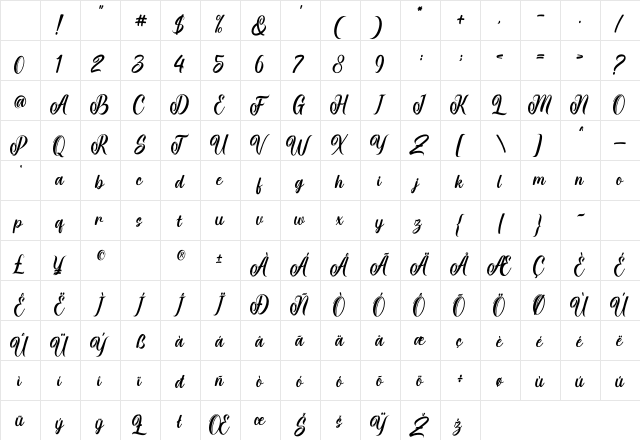
Complete The Valentino Regular glyph index. Displaying only characters natively supported by The Valentino Regular font.
The Valentino is a composed and adaptable typeface that performs quietly and consistently across a wide range of design contexts.